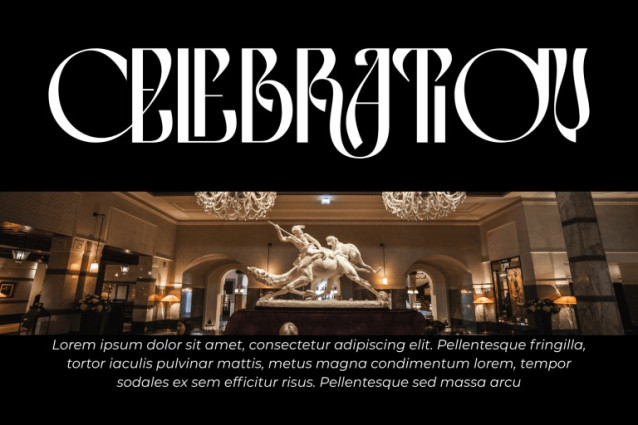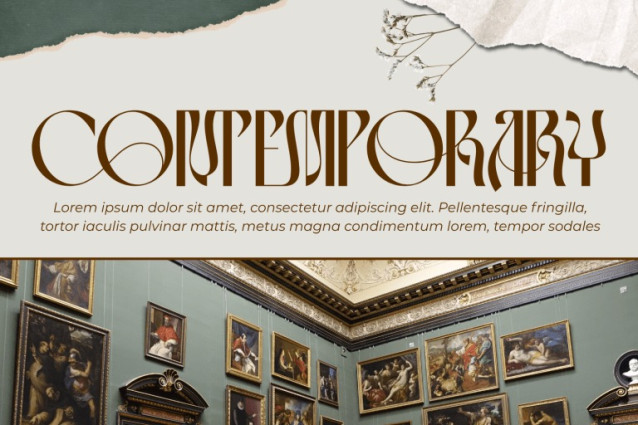
Paintings Galleries Font
Paintings Galleries Font, a refined Art Deco-inspired display font that embodies sophistication and modern elegance. With its tall proportions, flowing curves, and geometric details, this font is designed to bring a timeless artistic flair to your creative projects. Perfect for luxury branding, editorial titles, posters, packaging, and visual identity design, Paintings Galleries combines classical aesthetics with a contemporary edge.